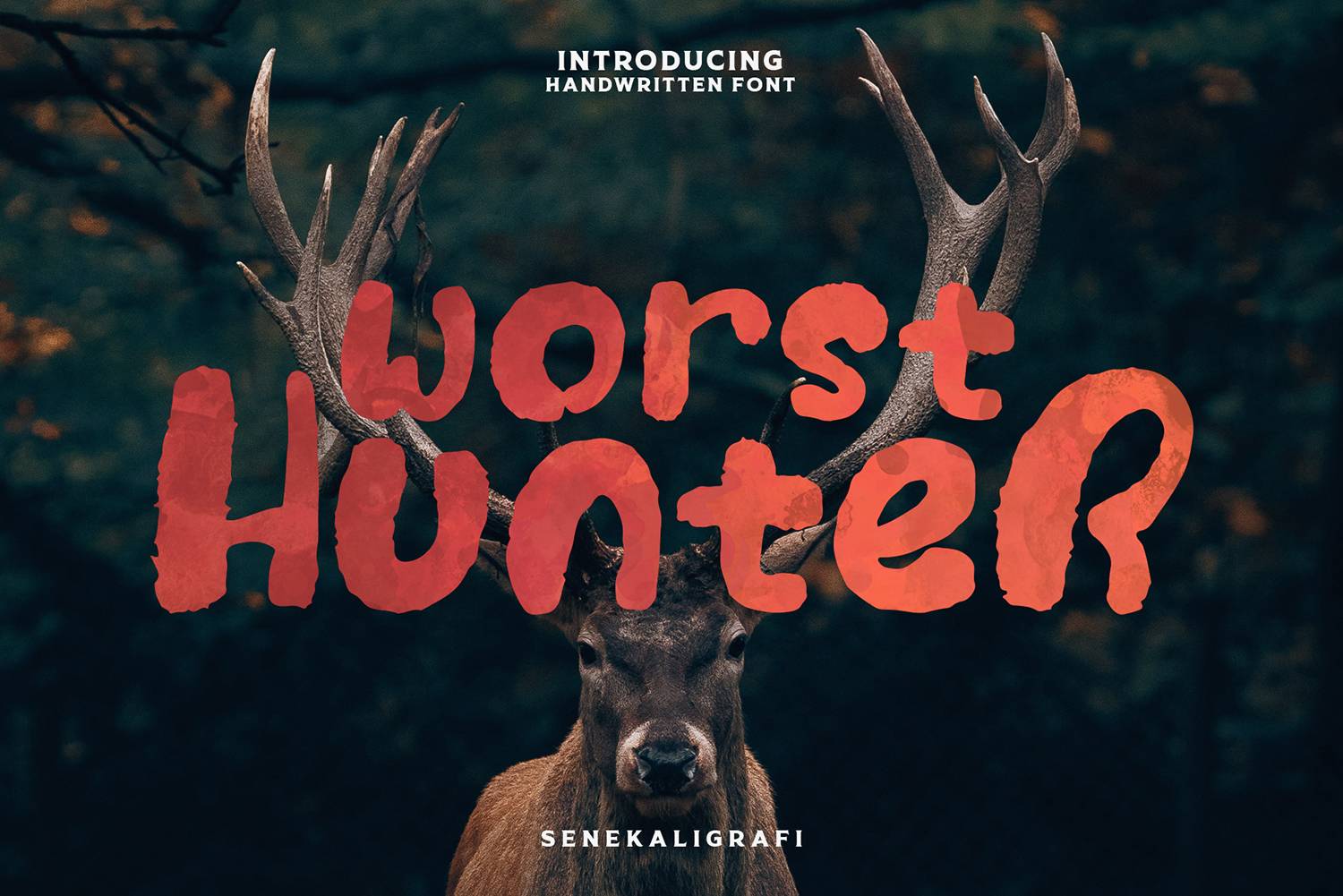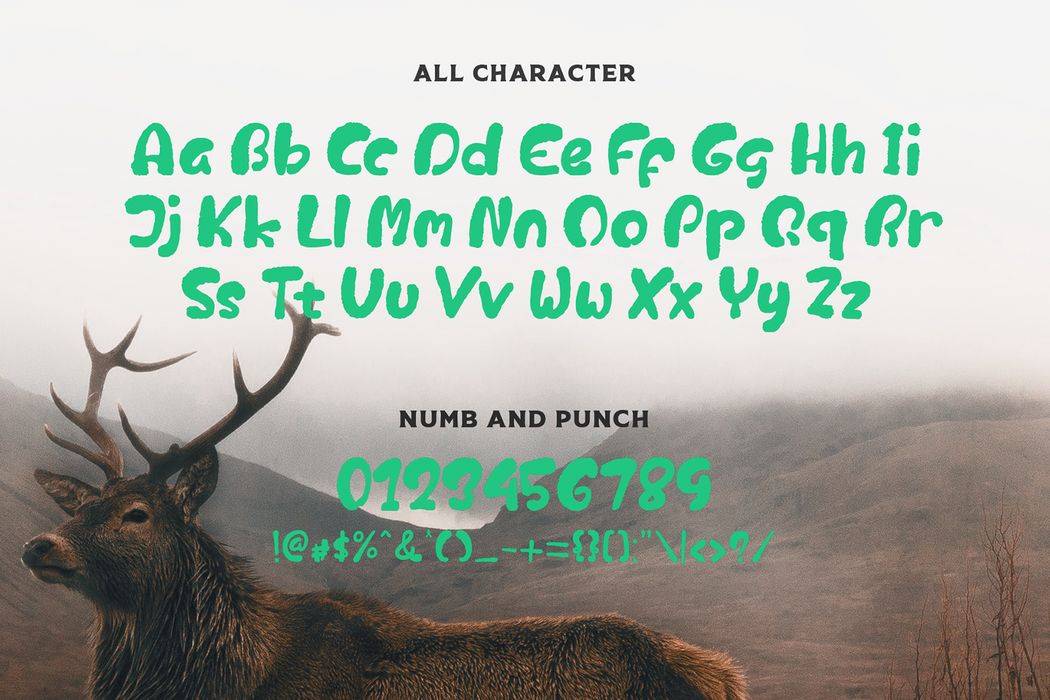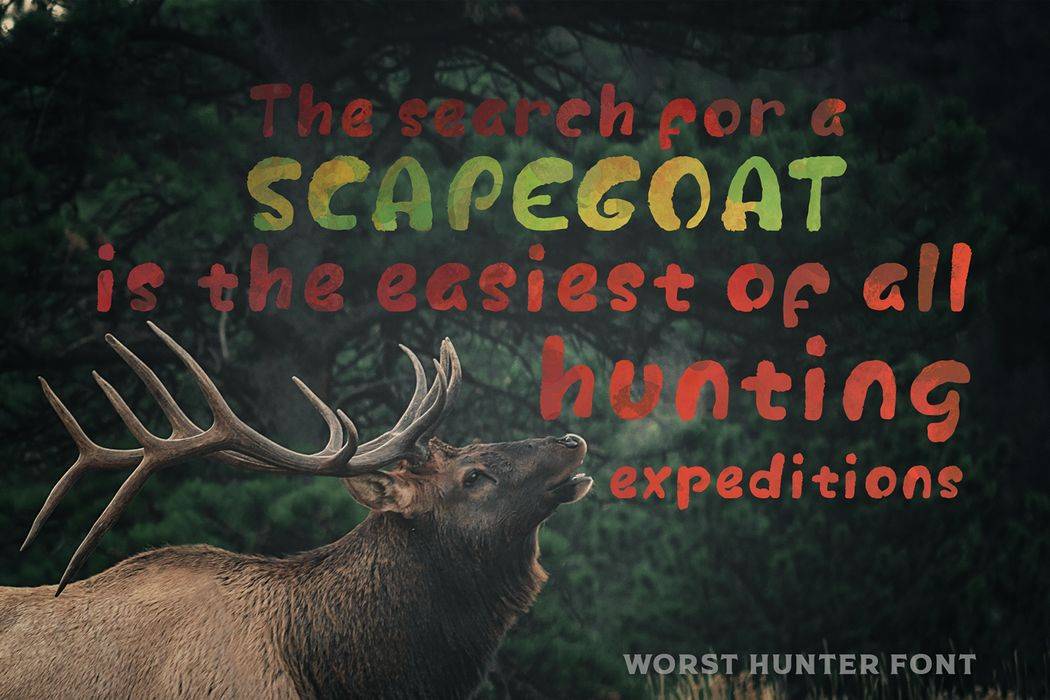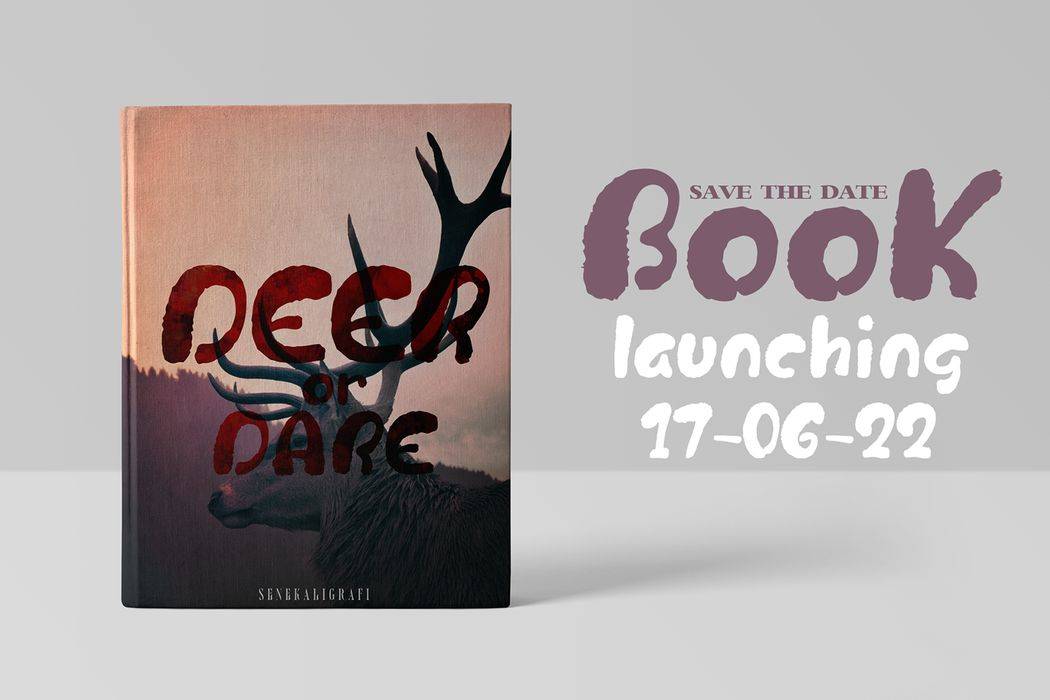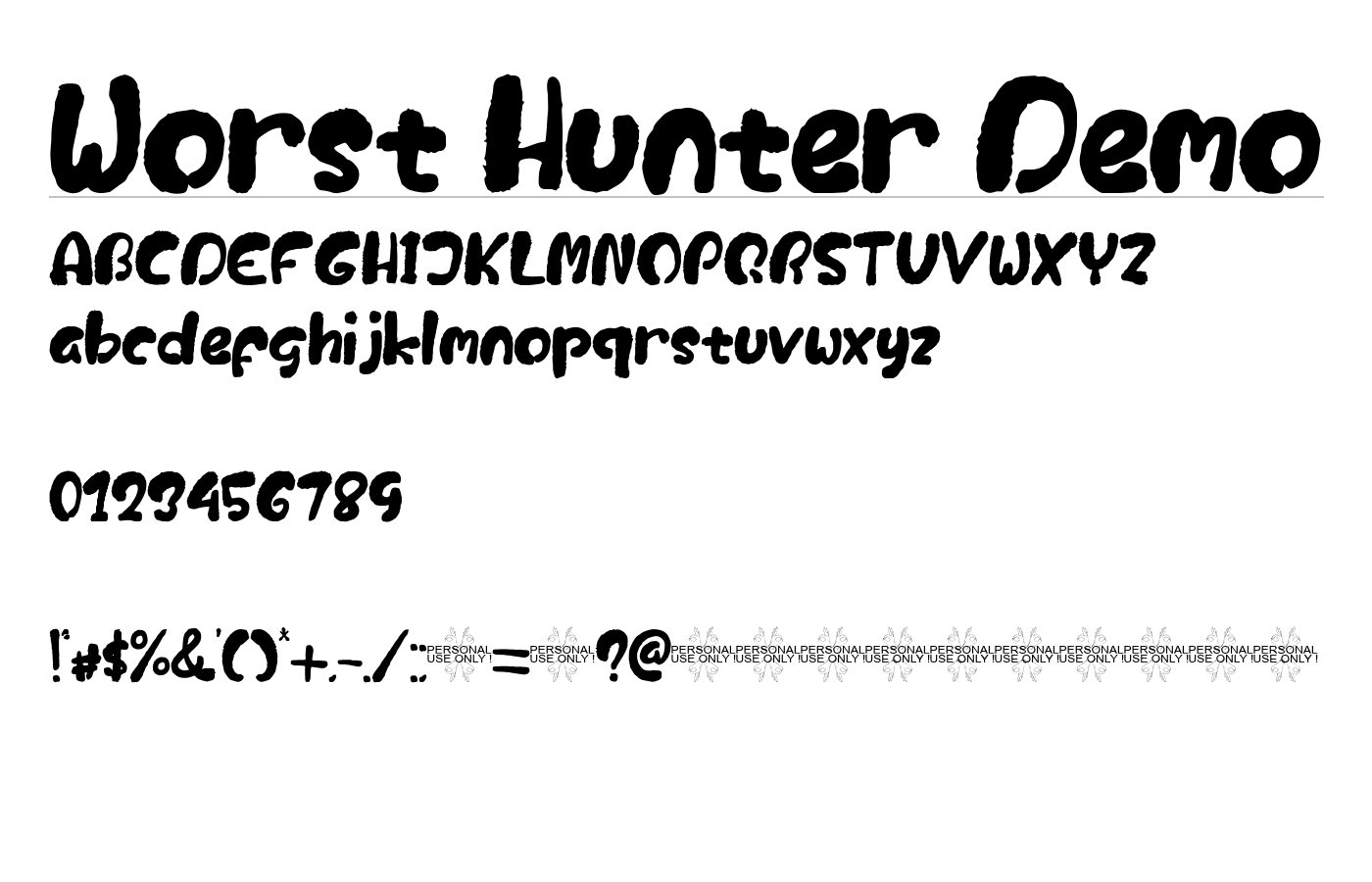
Worst Hunter is a bold, casual handwritten font with a playful and organic feel, featuring irregular, slightly rough edges that give it a natural, hand-drawn look. Its rounded, chunky letterforms and moderate width make it ideal for fun, informal designs such as posters, branding, or creative projects seeking a lively and approachable personality. This font works well when you want to convey warmth and creativity with a strong visual presence.
Worst Hunter Font
About Worst Hunter Font